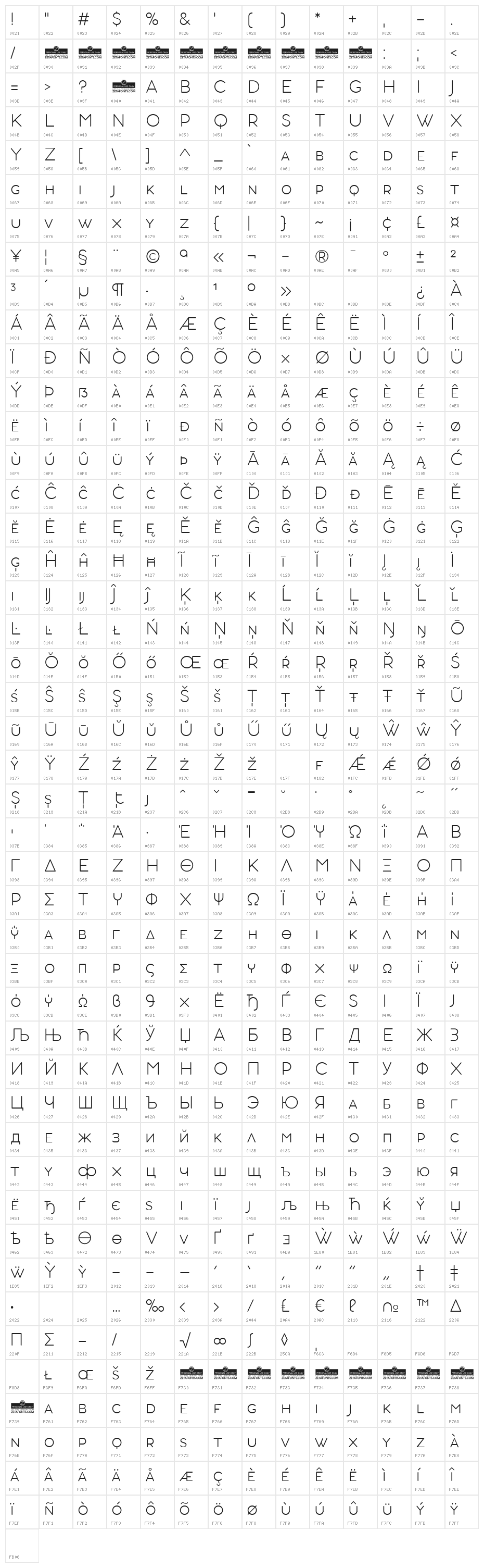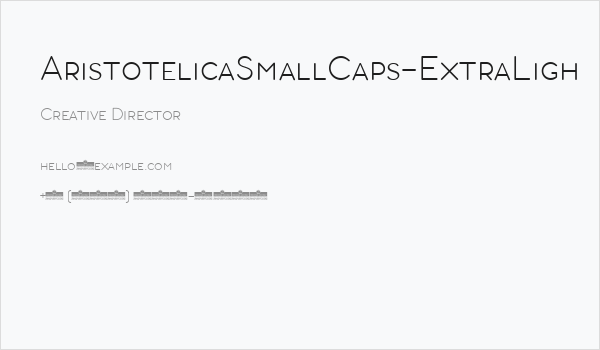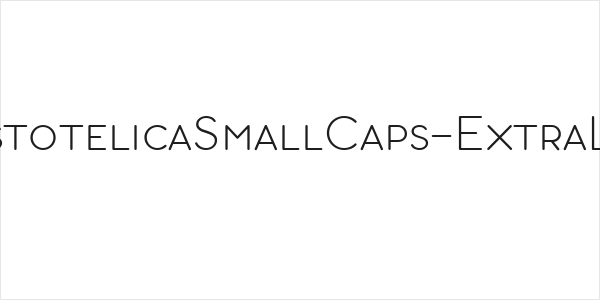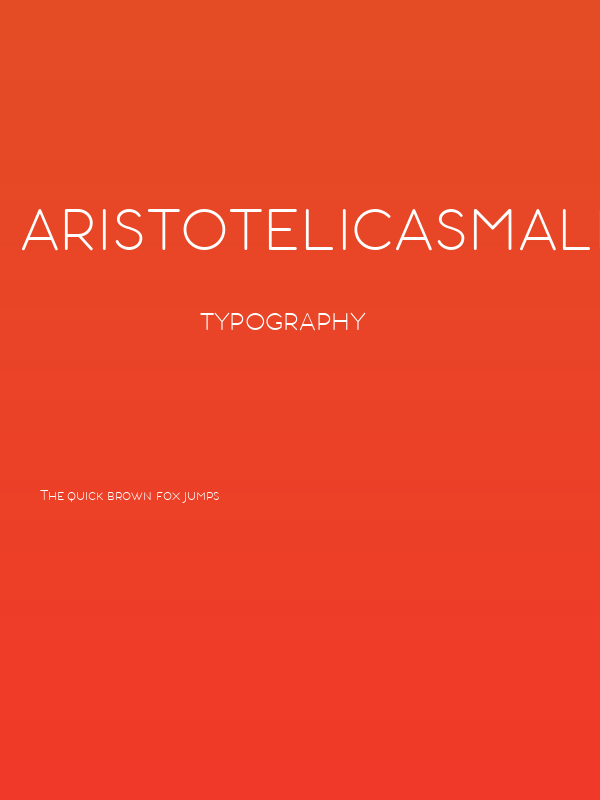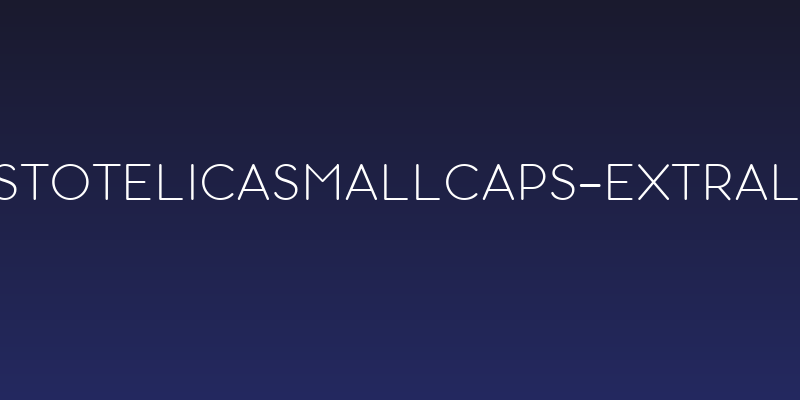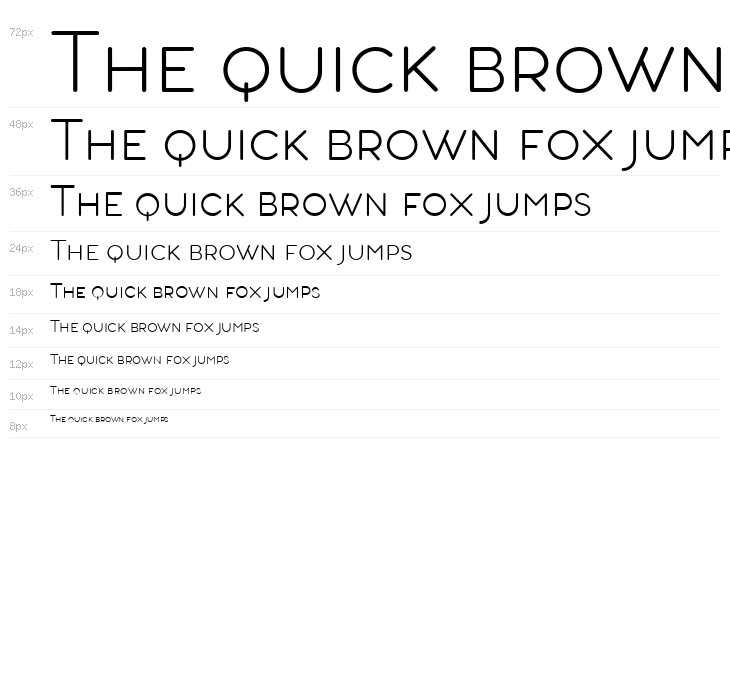
AristotelicaSmallCaps-ExtraLigh Font
AristotelicaSmallCaps-ExtraLigh Description
This font features a clean and modern design with a geometric sans-serif style. The characters are uniform in width, providing a balanced and harmonious appearance. The strokes are consistent and thin, contributing to a light and airy feel. The uppercase and lowercase letters maintain a similar height, enhancing readability and creating a cohesive look. The special characters and numbers are designed to match the overall aesthetic, ensuring versatility across various applications. This font is ideal for projects that require a contemporary and minimalist touch.
| Proposed Projects | Ideal for branding, editorial design, websites, and minimalist graphic design projects. |